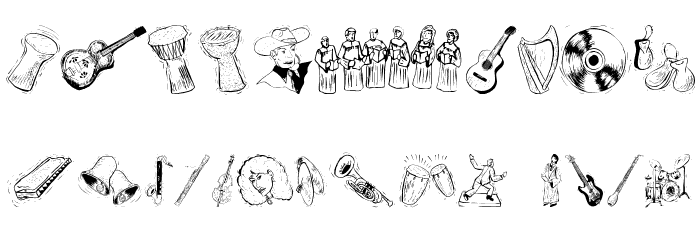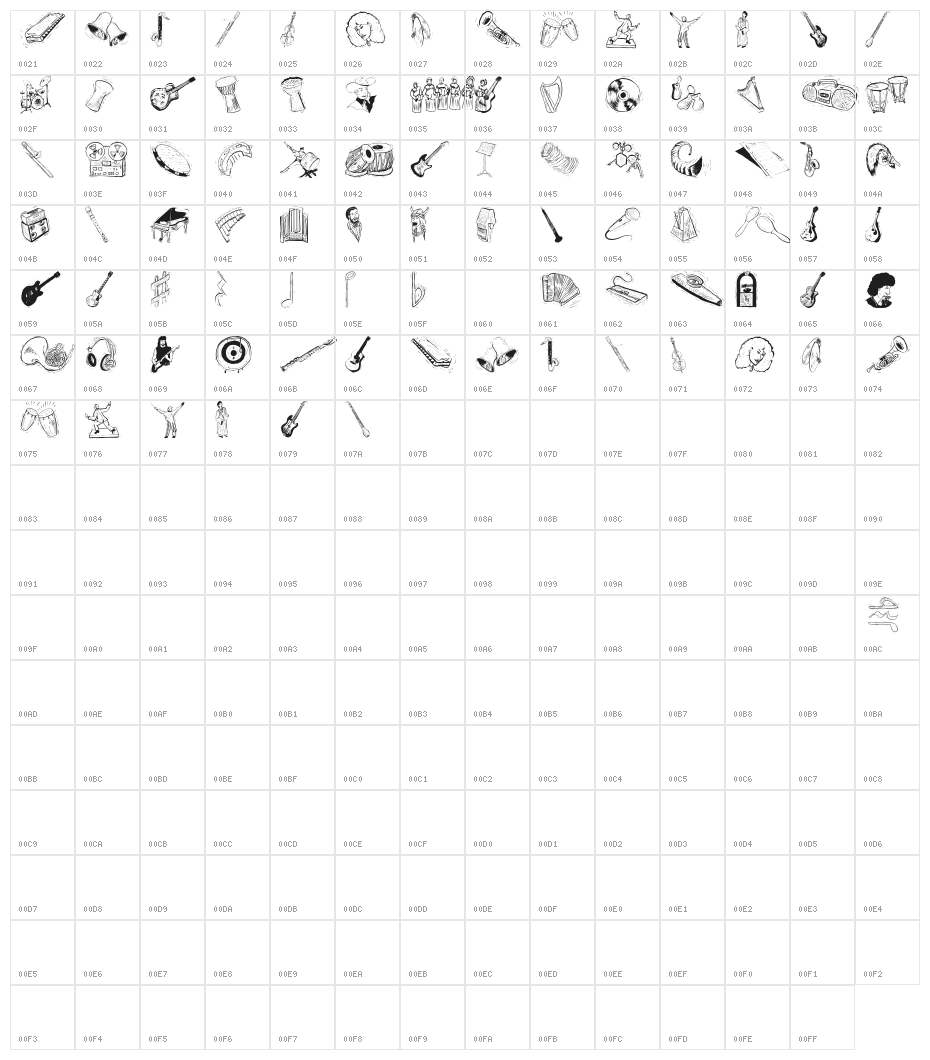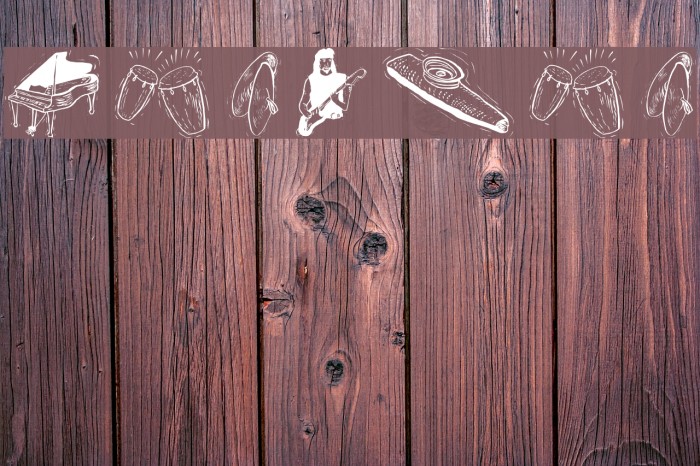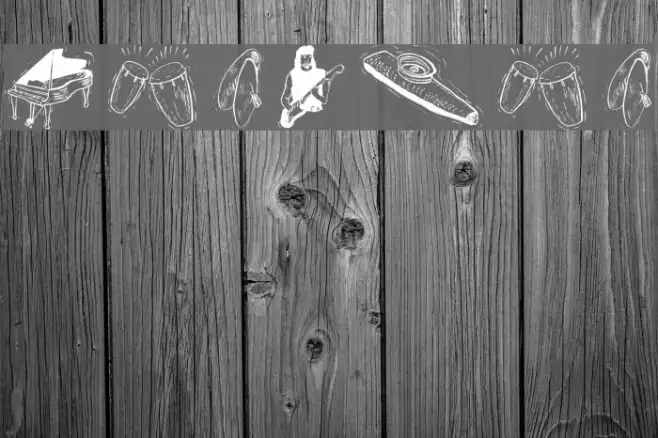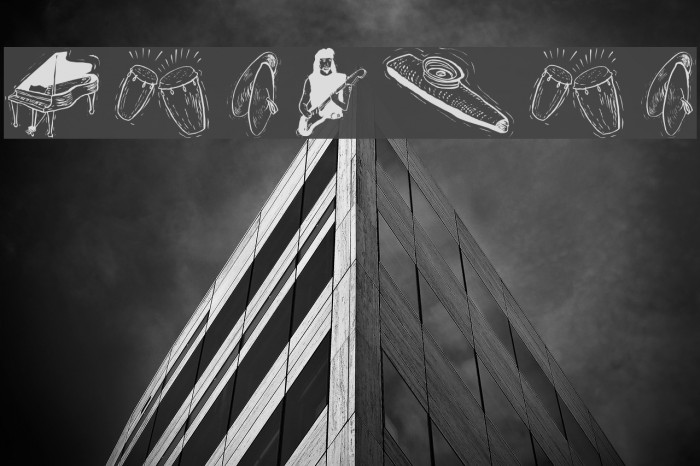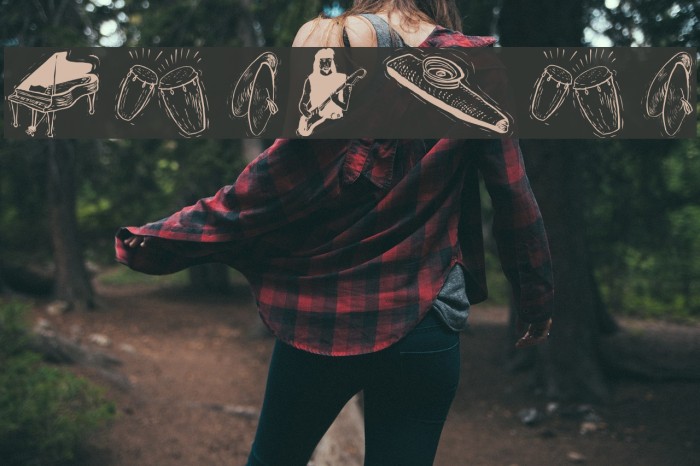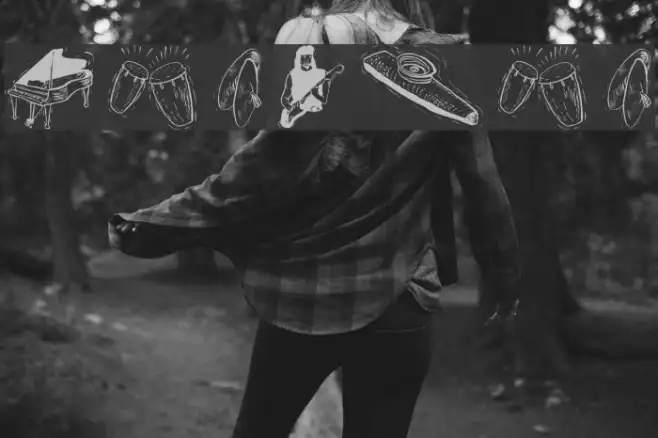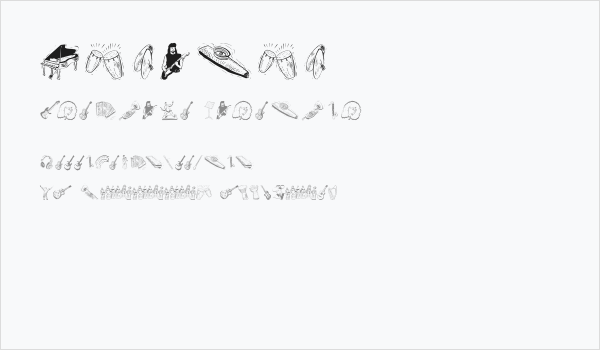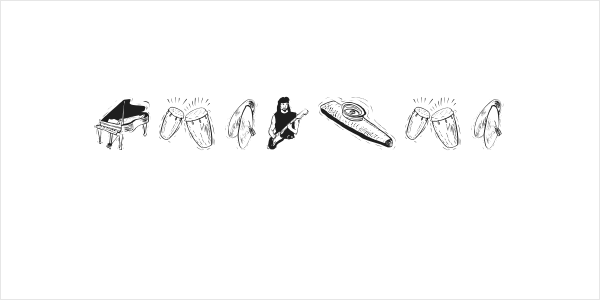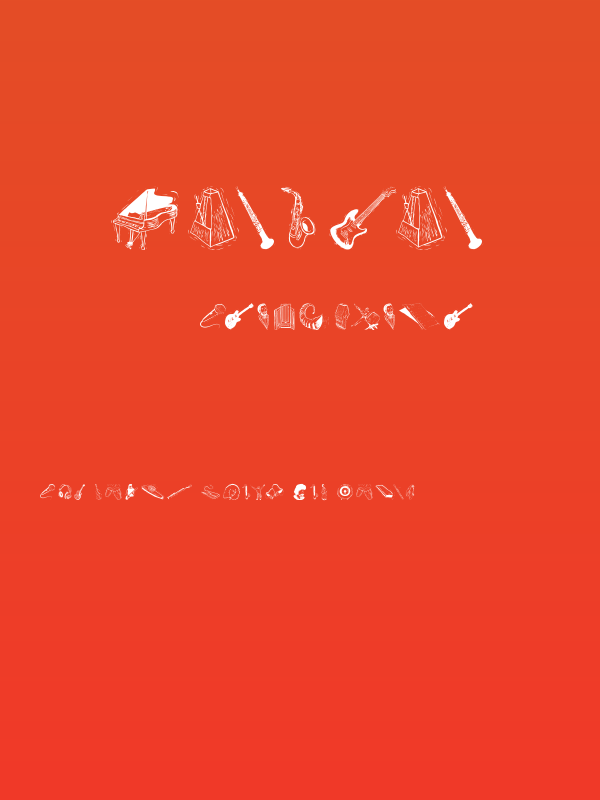
Musicus Font
Musicus Description
A highly decorative, illustrative set of musical-themed glyphs where each character is represented by a unique hand-drawn image of an instrument, musician, or music-related object. The style is sketch-like, playful, and detailed, with varying line weights and whimsical interpretations of musical elements.
| Overall Style | Decorative, Playful, Artistic |
| Use Case | Display, Posters, Themed Graphics, Educational Titles |
| Proposed Projects | ChildrenΓ’β¬β’s books, music event posters, album covers, educational materials, themed invitations. |